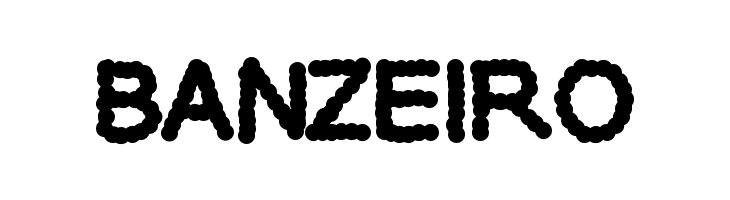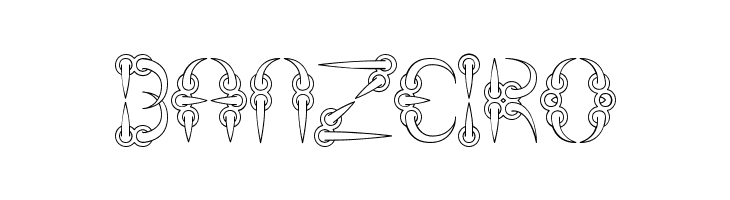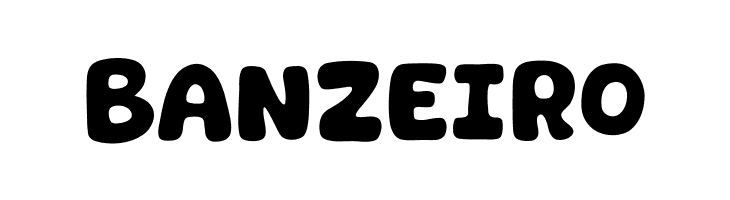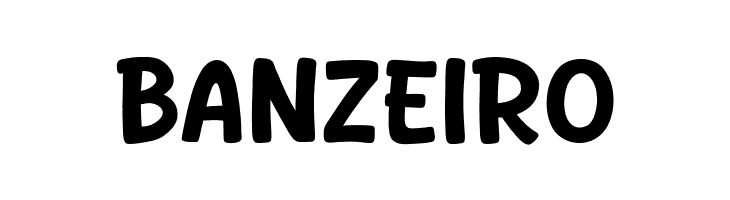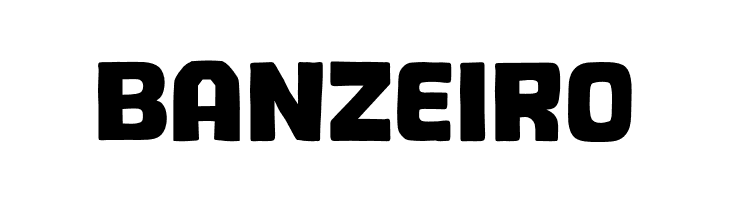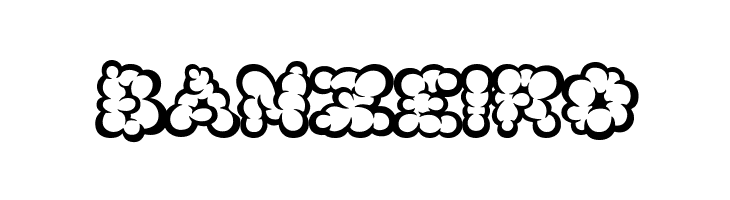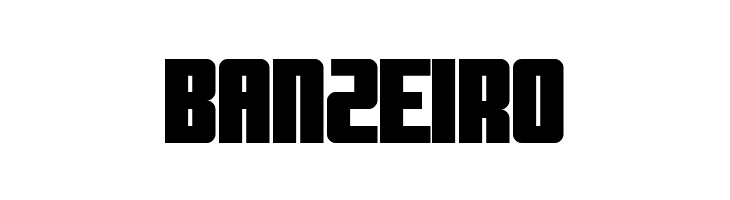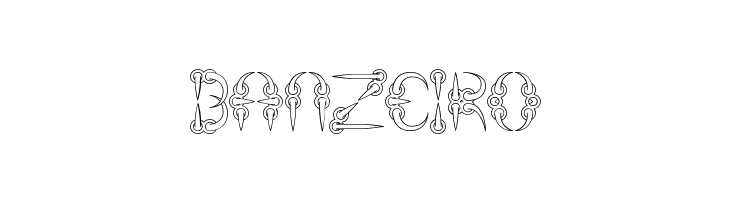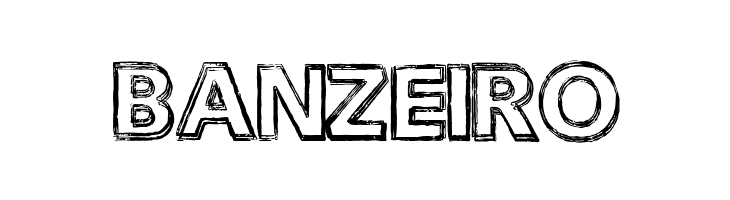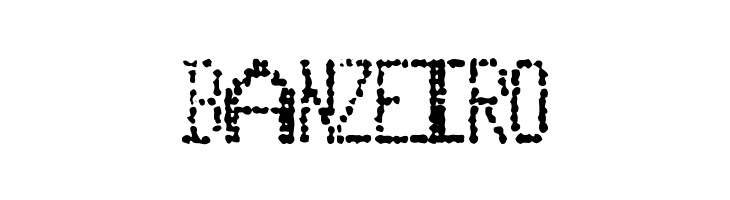
An intricate, claw-like decorative font with sharp, swirling elements.
An ornate, gothic-style font with claw-like extensions and intricate detailing.
A bold, edgy font with sharp, angular lines and dynamic energy.
A playful, bold font with rounded, bubbly characters and a friendly aesthetic.
A bold, playful font with rounded edges and a hand-drawn feel.
A bold, geometric font with unique cut-out sections for a modern, impactful look.
A bold, rounded font with a playful and friendly style.
A whimsical and decorative font with intricate, fantastical designs in each character.
Illustrative display font featuring climbers and mountaineering scenes.
Illustrative dingbat font depicting climbers in various poses.
A decorative font featuring climbers and intricate patterns within circular shapes.
A bold, playful font with rounded edges and a slightly condensed style.
A modern, tech-inspired font with geometric shapes and clean lines.
A bold, geometric font with a blocky, pixelated design.
A playful, cloud-inspired font with a whimsical and airy design.
A playful, bold font with a hand-drawn, whimsical style.
Whimsical, abstract dingbat font with faces, eyes, and geometric motifs.
A bold, hand-drawn font with a sketch-like, artistic appearance.
Hand-drawn decorative font with clothing illustrations as characters.
A playful, cloud-like font with rounded, bubbly characters.
A playful handwritten font with irregular strokes and a casual feel.
A whimsical and decorative font with playful, unique characters.
A whimsical decorative font featuring clown illustrations for each character.
A decorative font composed of illustrated clown characters for each glyph.
A playful, clown-themed decorative font with unique character illustrations.
A playful, dotted font with a unique and modern design.
A modern, geometric font with bold, rounded edges and unique character cuts.
A playful, bold font with rounded edges and a whimsical style.
A bold, playful font with rounded edges and a sporty, vintage-inspired design.
A bold, italicized font with rounded, playful characters and dynamic slant.